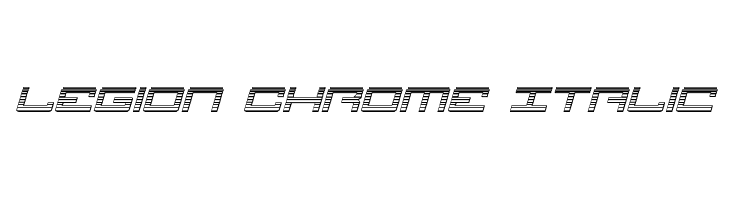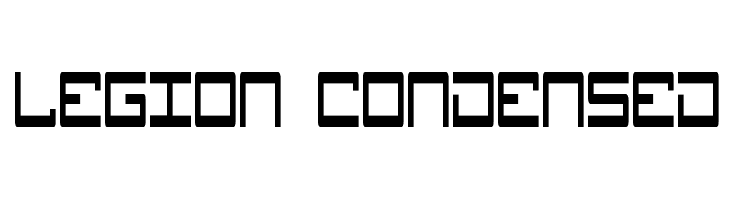
A bold, italicized font with a futuristic and dynamic design.
A futuristic, geometric font with angular shapes and consistent stroke width.
A futuristic, geometric font with outlined letterforms and a tech-inspired aesthetic.
A futuristic, 3D, italicized font with bold geometric shapes and outlined characters.
A bold, geometric font with a futuristic and tech-inspired design.
A bold, italicized font with a futuristic and dynamic style.
A bold, semi-italic font with a futuristic and geometric design.
A futuristic, geometric font with bold, angular lines and a hollow structure.
A futuristic, angular, and italic font with outlined characters.
A futuristic, industrial font with geometric shapes and intricate line patterns.